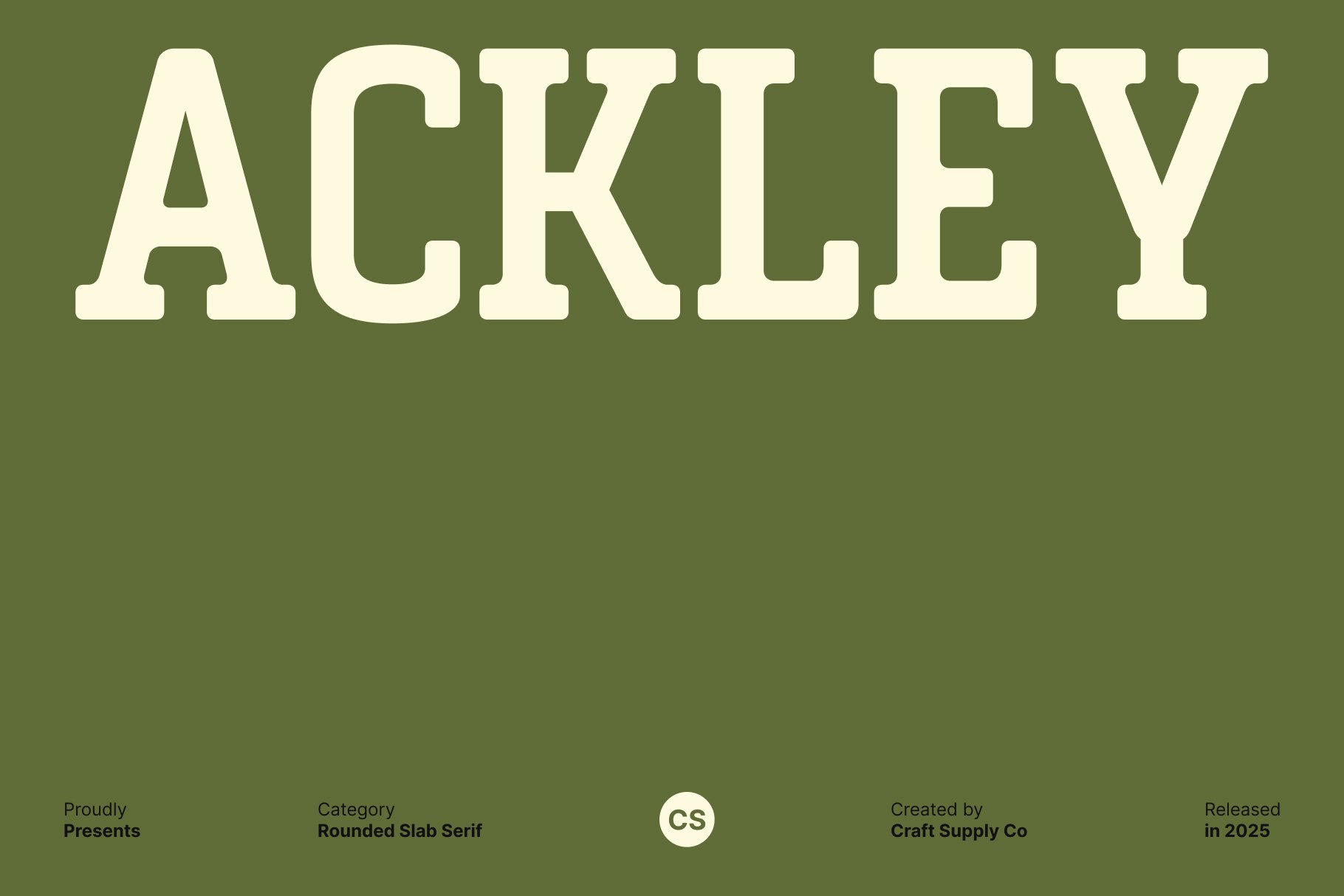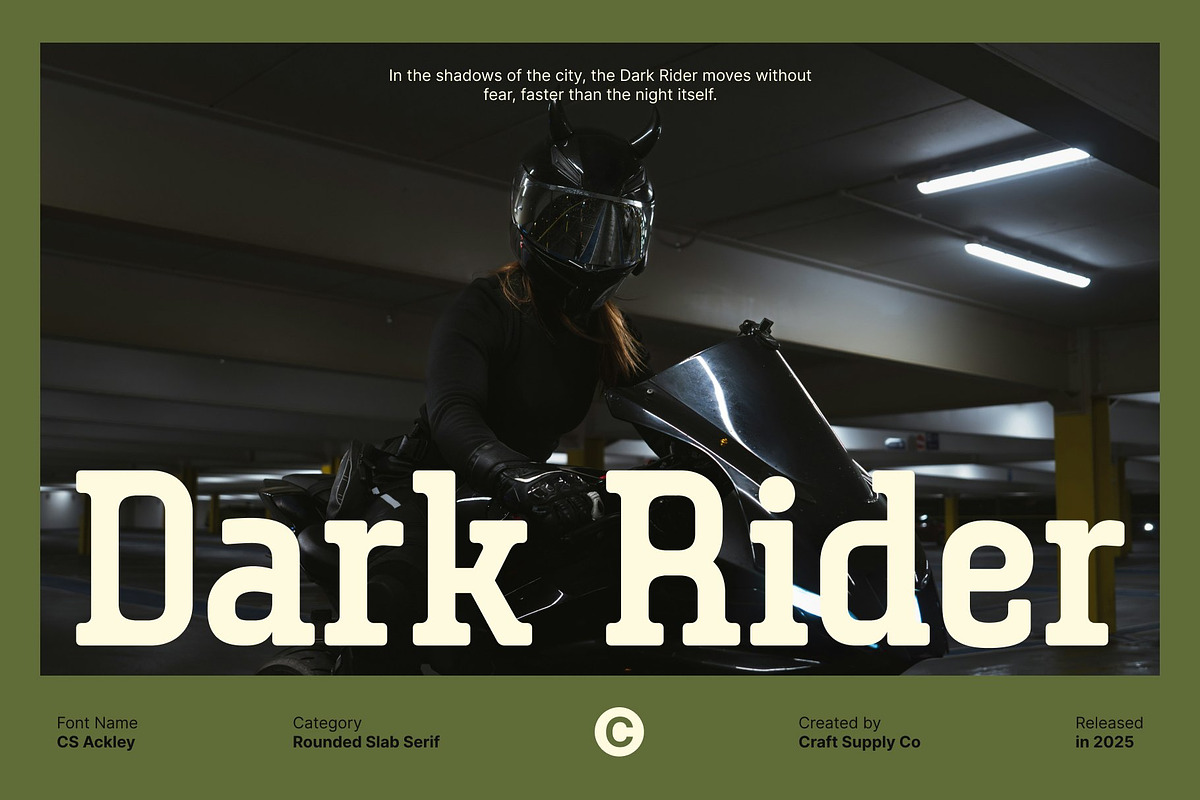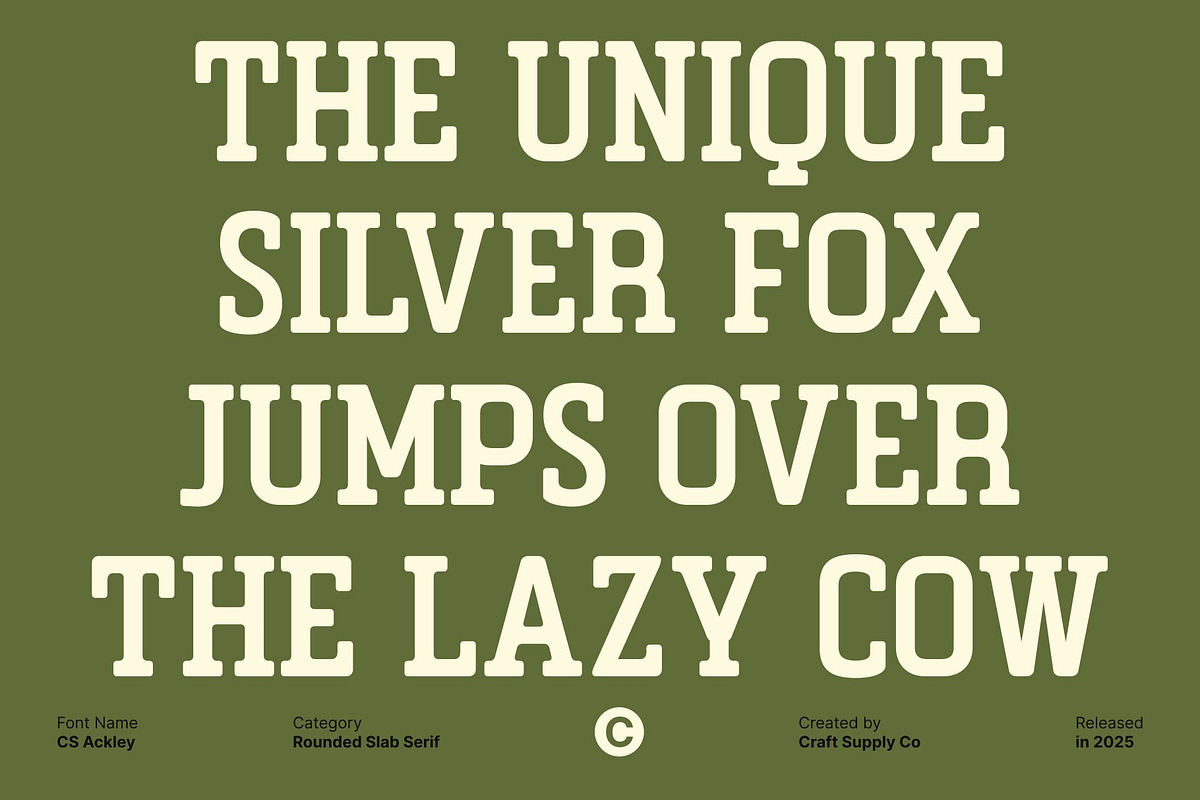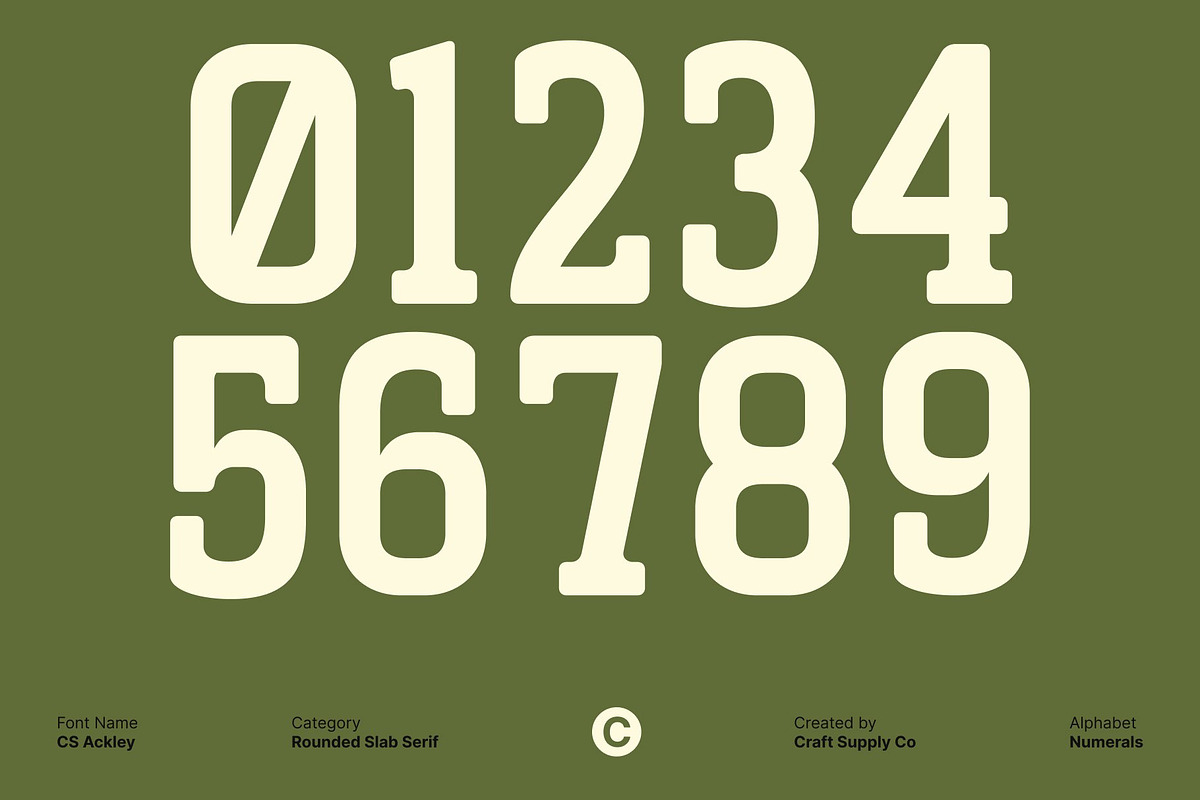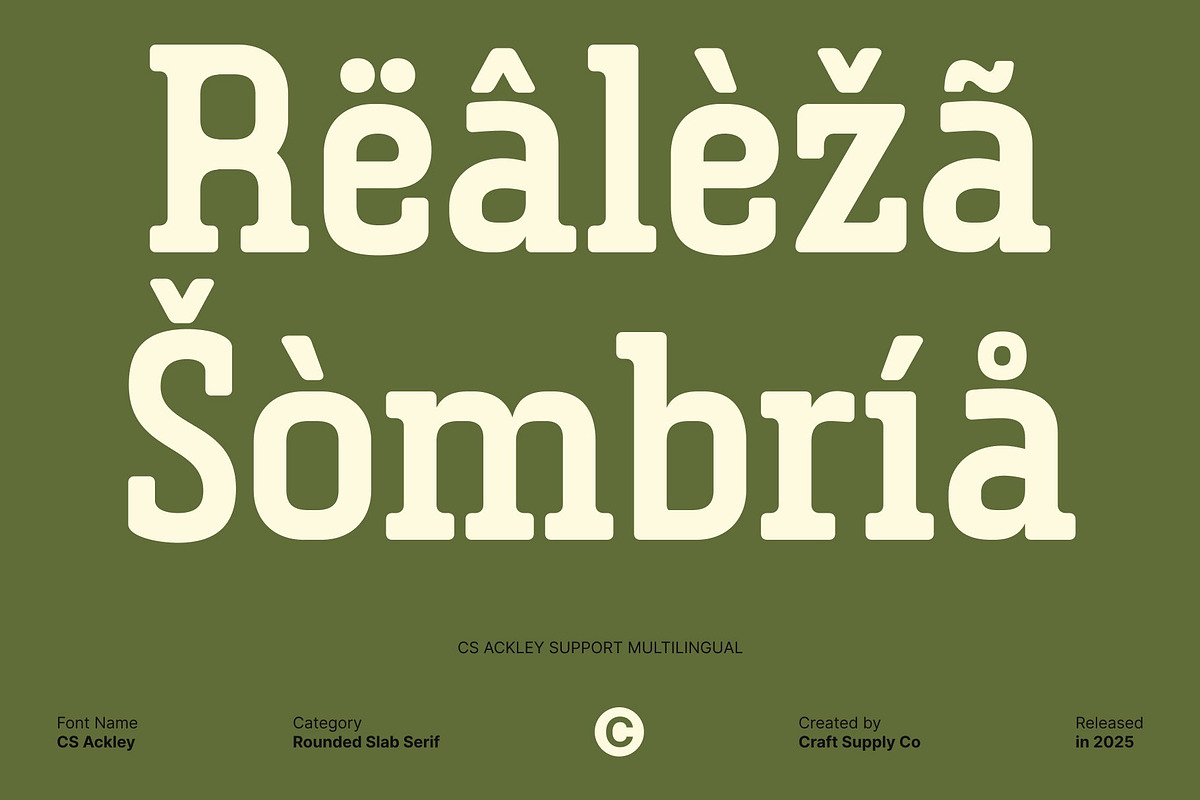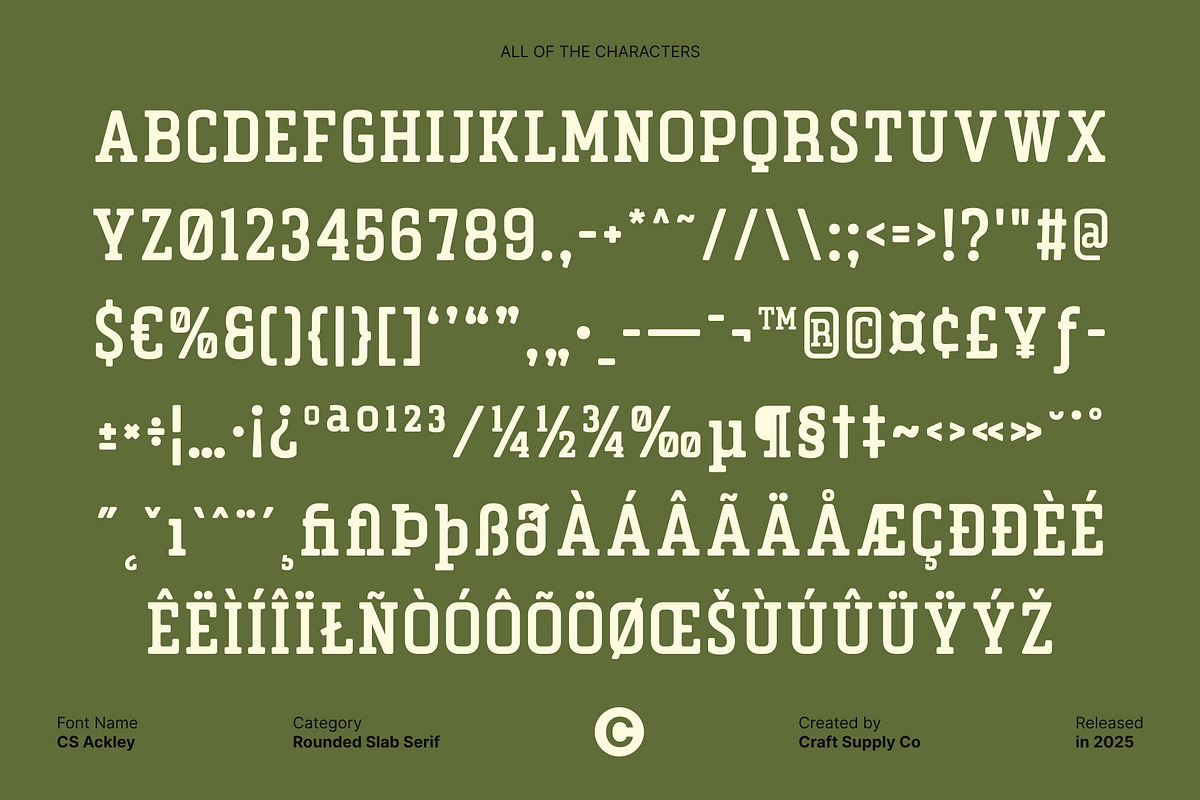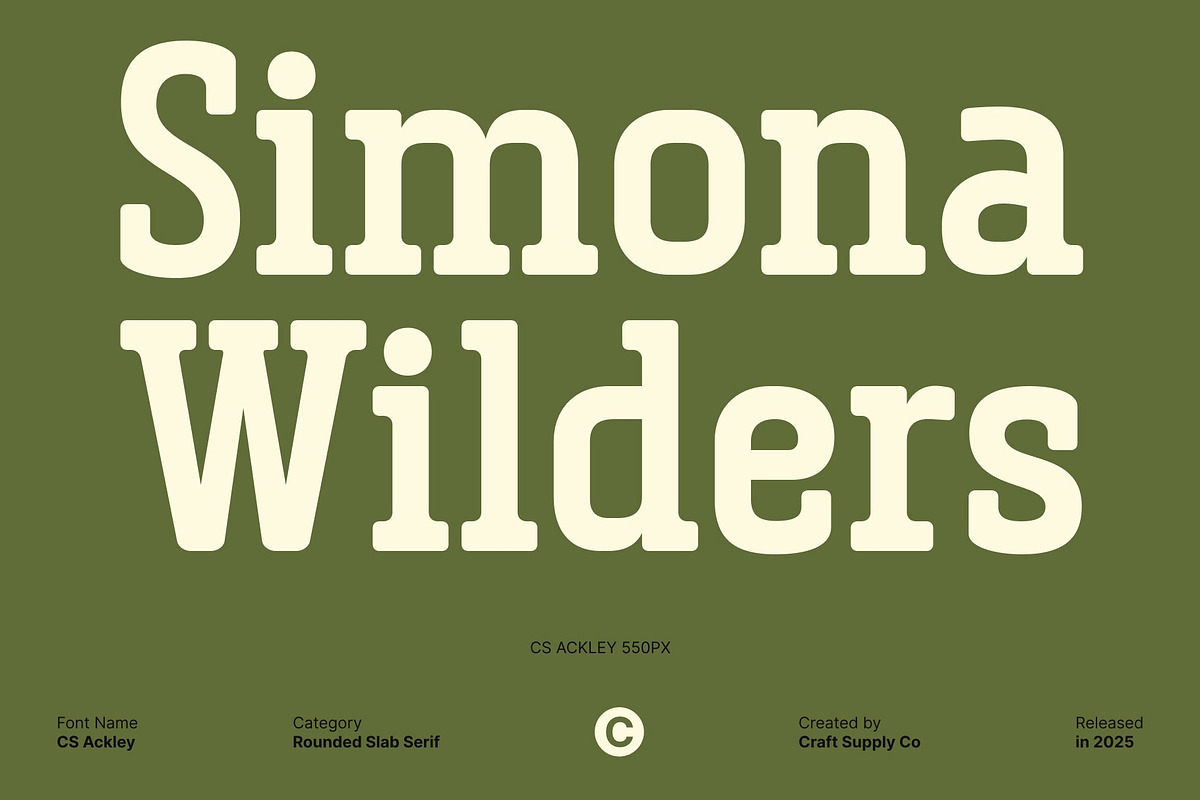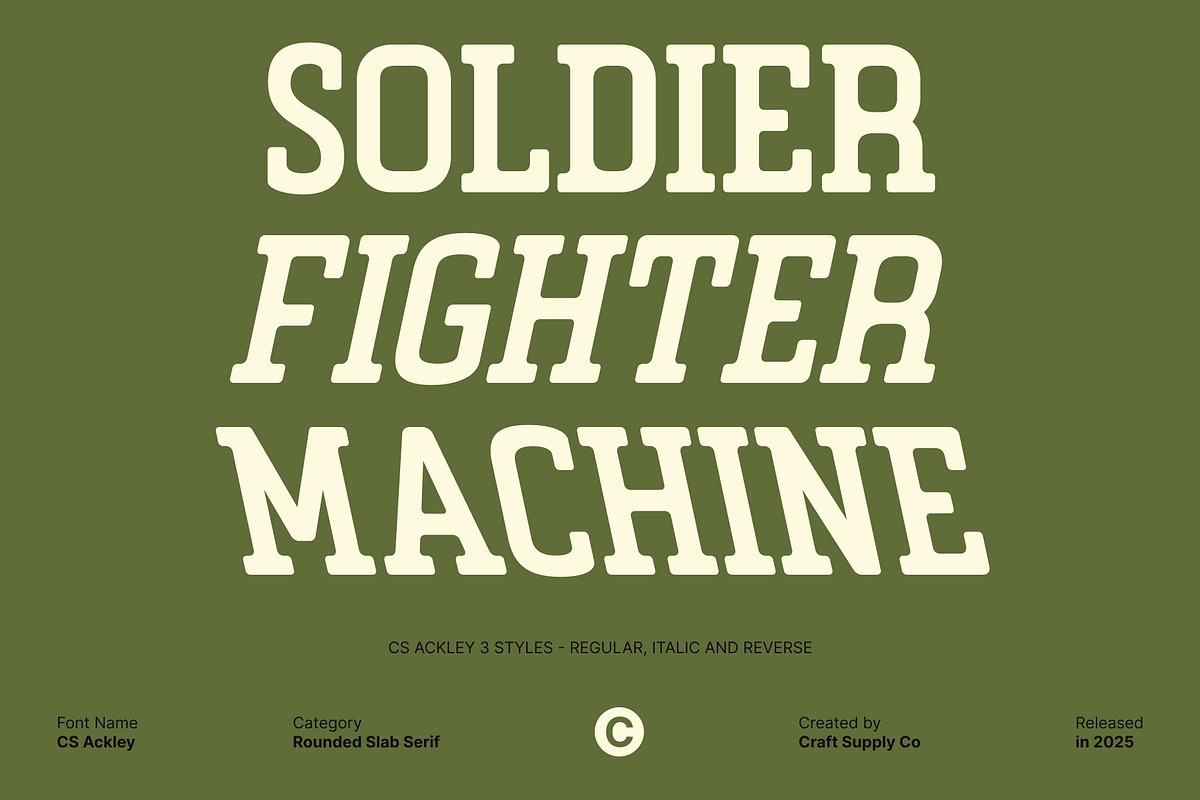
CS Ackley – Slab Serif Font
CS Ackley – Bold Slab Serif with a Strong Industrial Presence
Strong Slab Serif Forms for a Bold and Industrial Look This is a slab serif font crafted to deliver a powerful, industrial, and highly assertive visual impact. Its thick blocks, sturdy serifs, and confident structure create a commanding presence that immediately grabs attention.
Built for Maximum Readability at Any Distance Designed with clarity and impact in mind, excels in large-scale displays. Its bold shapes and well-defined letterforms remain sharp and readable from afar, making it ideal for headlines, posters, billboards, advertisements, and signage. Whether viewed up close or from a distance, this font maintains its striking legibility and visual strength.
Modern, Sturdy, and Perfect for High-Impact Branding The modern proportions and durable slab serifs give a sturdy, industrial feel that works beautifully in brands seeking a strong identity. Its assertive design communicates reliability and boldness, adding weight and seriousness to any message. Use it to create logos, product packaging, or promotional materials that require a firm, confident voice.
Dynamic Choice for Sports and Energetic Designs This font also shines in sports-related projects, thanks to its powerful posture and energetic tone. From team branding and sports apparel to event posters and score graphics, this font amplifies motion and intensity. Its bold presence boosts excitement, competitiveness, and team spirit—making every design feel powerful, modern, and ready for action.
- CS Ackley Regular
- CS Ackley Italic
- CS Ackley Reverse Italic